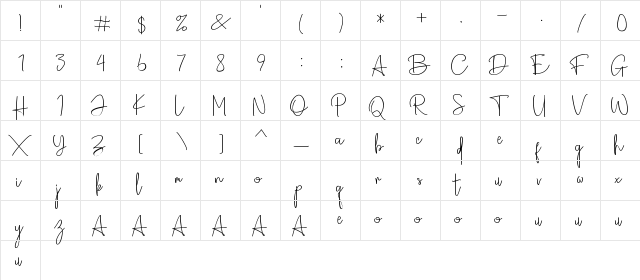
Broetown Signature BroetownSignatureRegular Font Preview
Broetown Signature BroetownSignatureRegular
Broetown Signature BroetownSignatureRegular Font Details
Design Context for Broetown Signature Typeface
Broetown Signature is a composed and adaptable typeface that performs quietly and consistently across a wide range of design contexts.